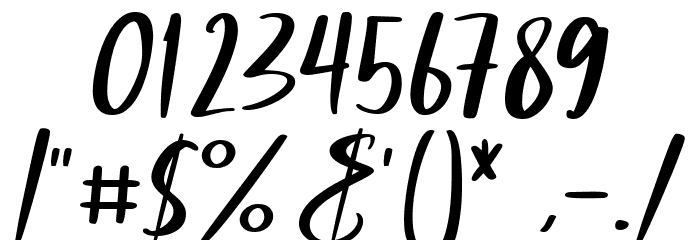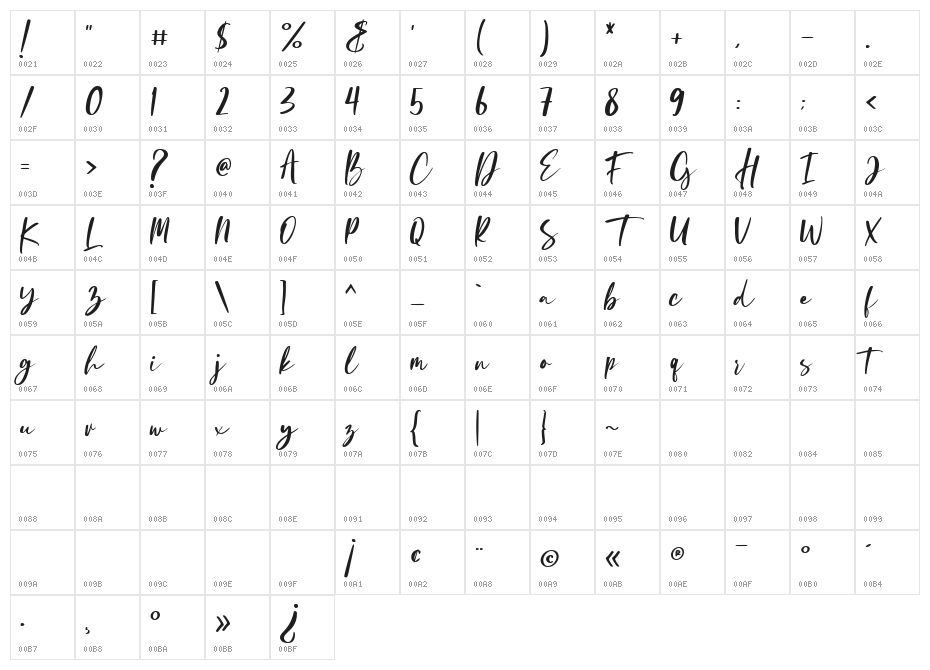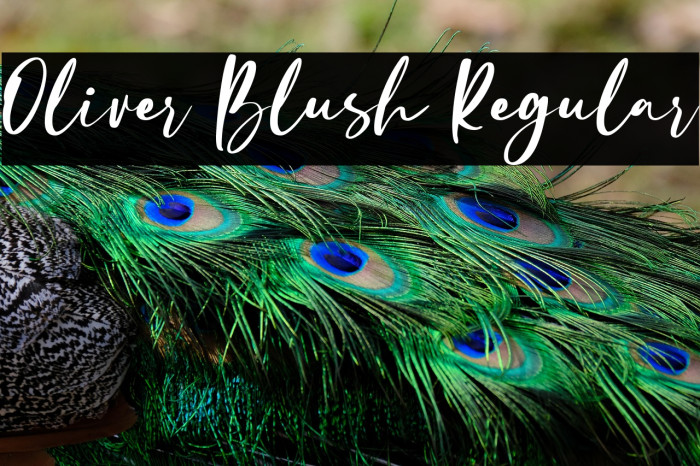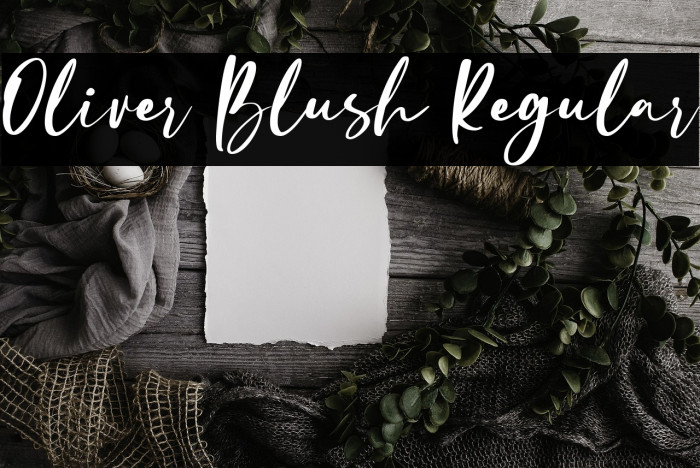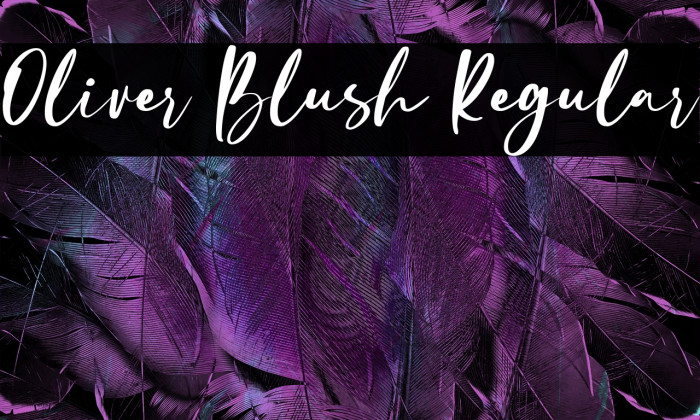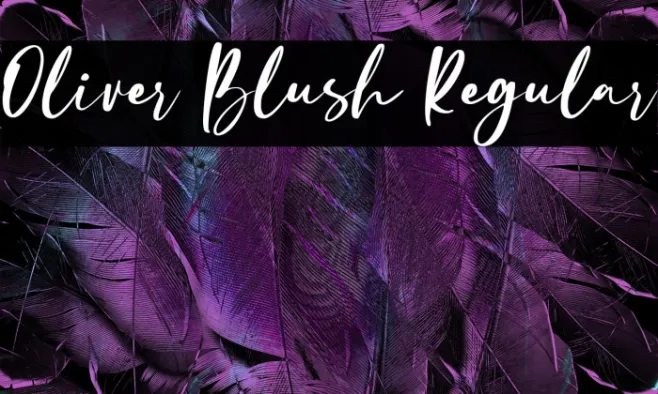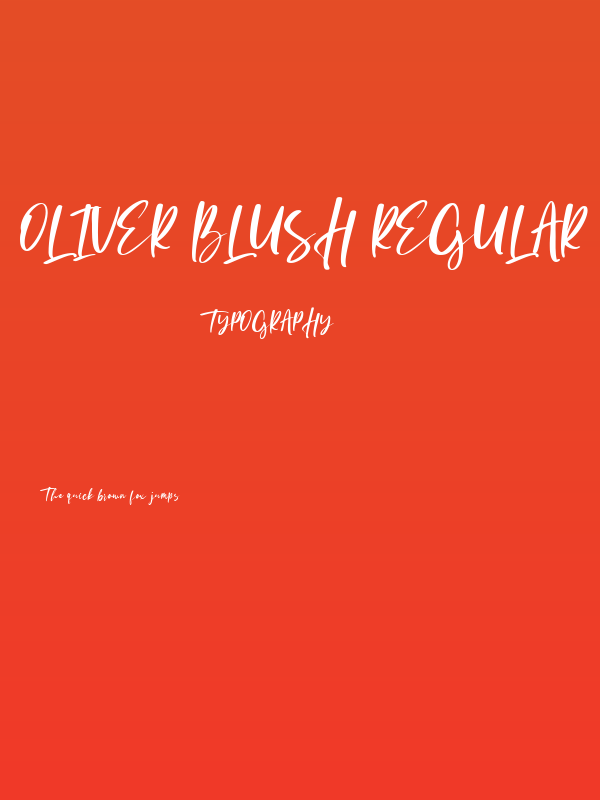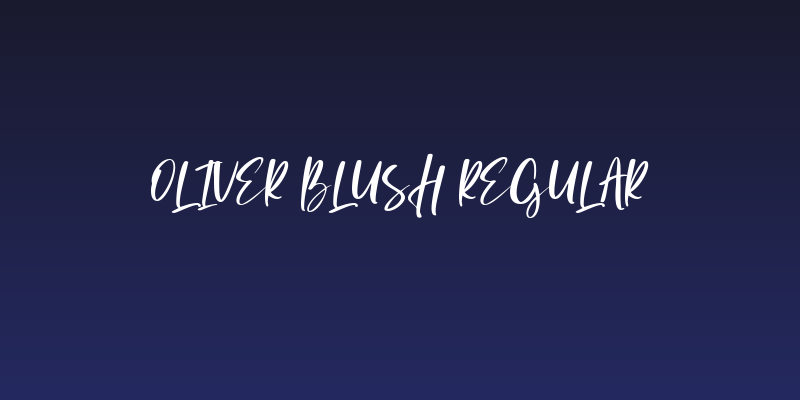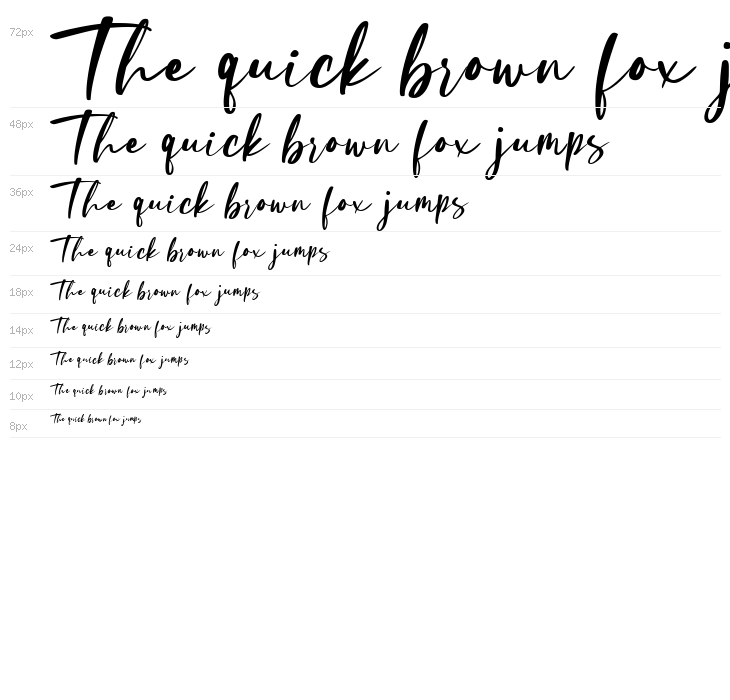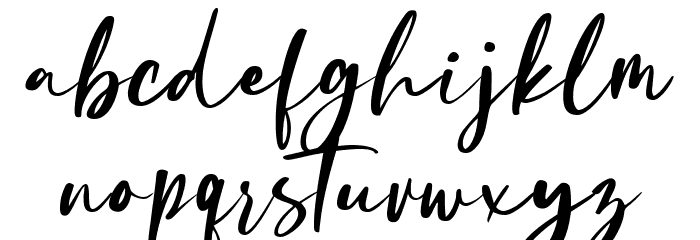
Oliver Blush Regular Font
Oliver Blush Regular Description
This font features a lively and expressive handwritten style, characterized by its fluid and dynamic strokes. The uppercase letters are bold and slightly slanted, giving a sense of movement and energy. The lowercase letters maintain a consistent flow, with some characters extending below the baseline, adding to its casual and artistic appeal. The numerals are clear and legible, with a playful touch that complements the overall design. Special characters are creatively styled, enhancing the font's versatility for various creative projects.
| Proposed Projects | Ideal for greeting cards, invitations, branding, and social media graphics. |